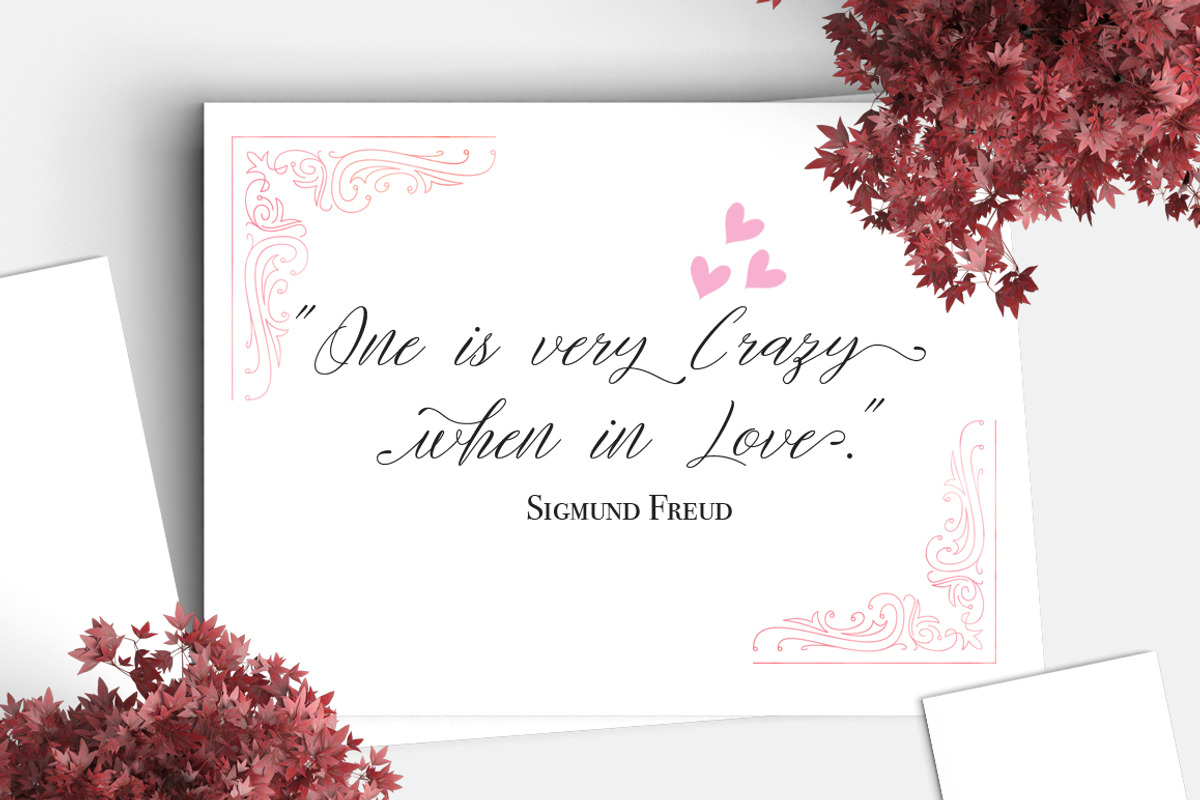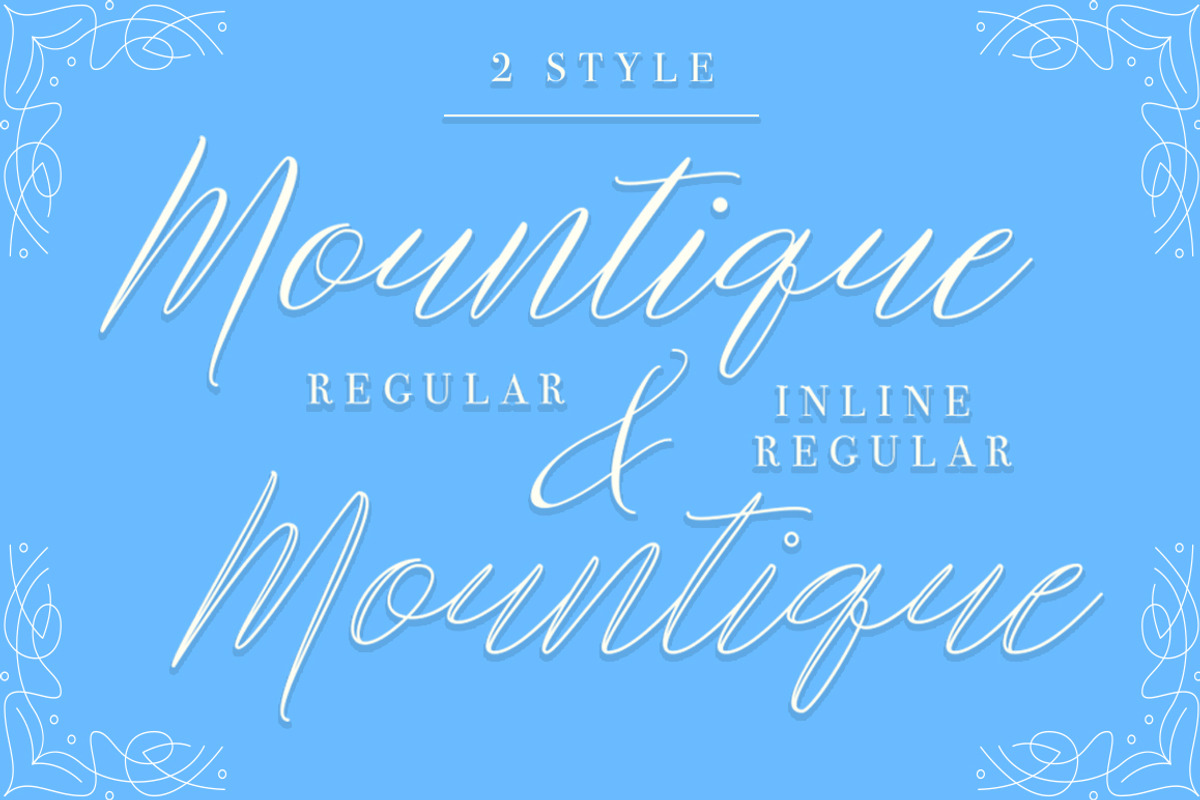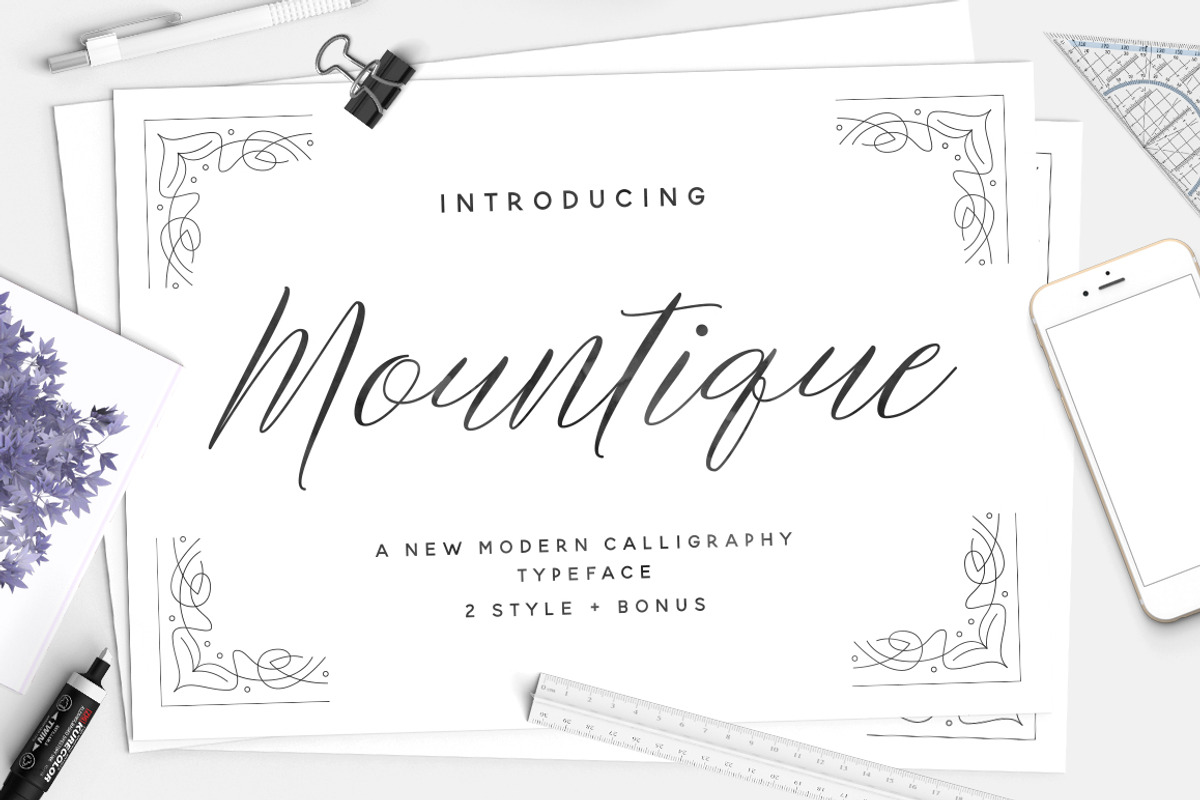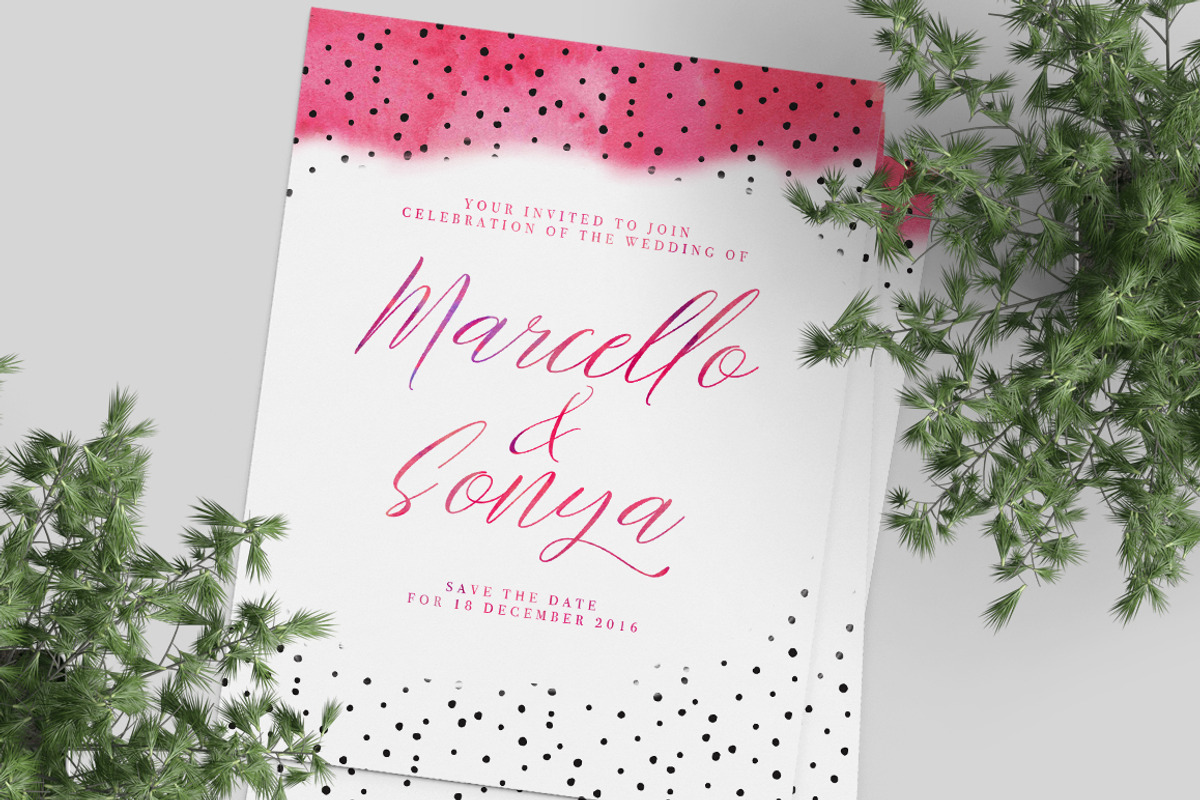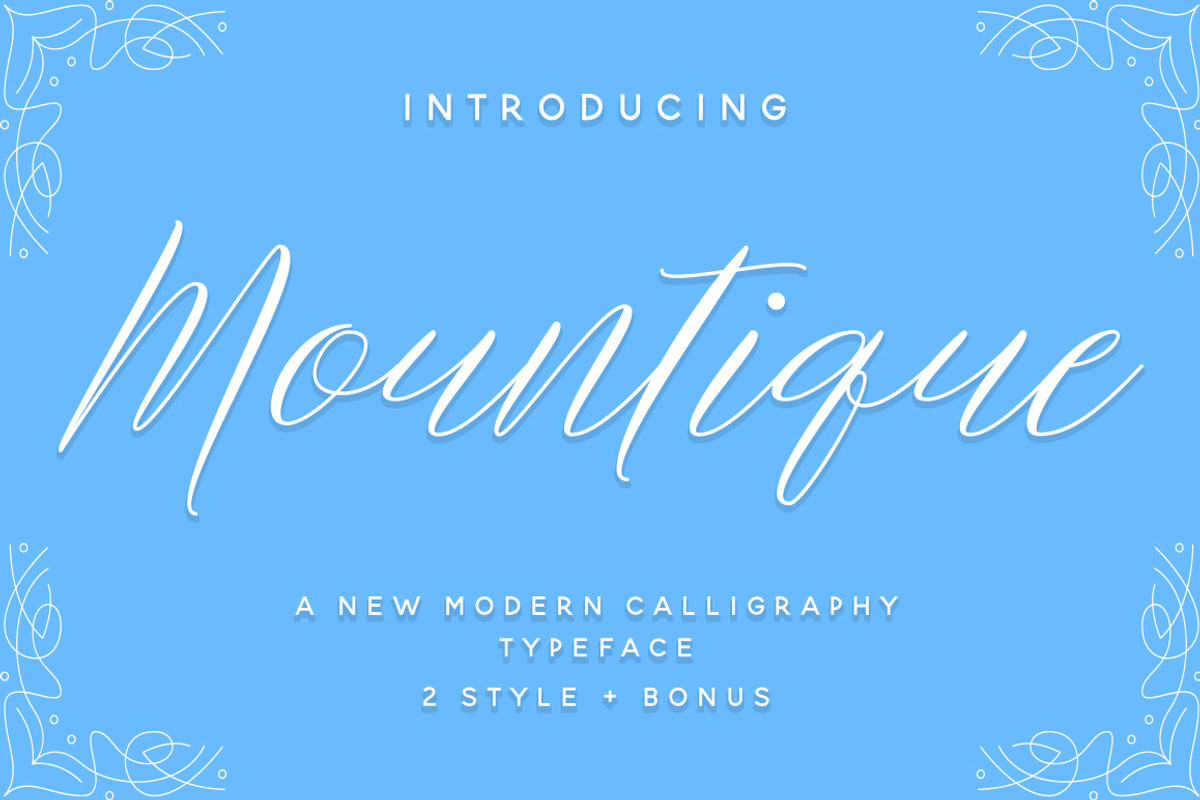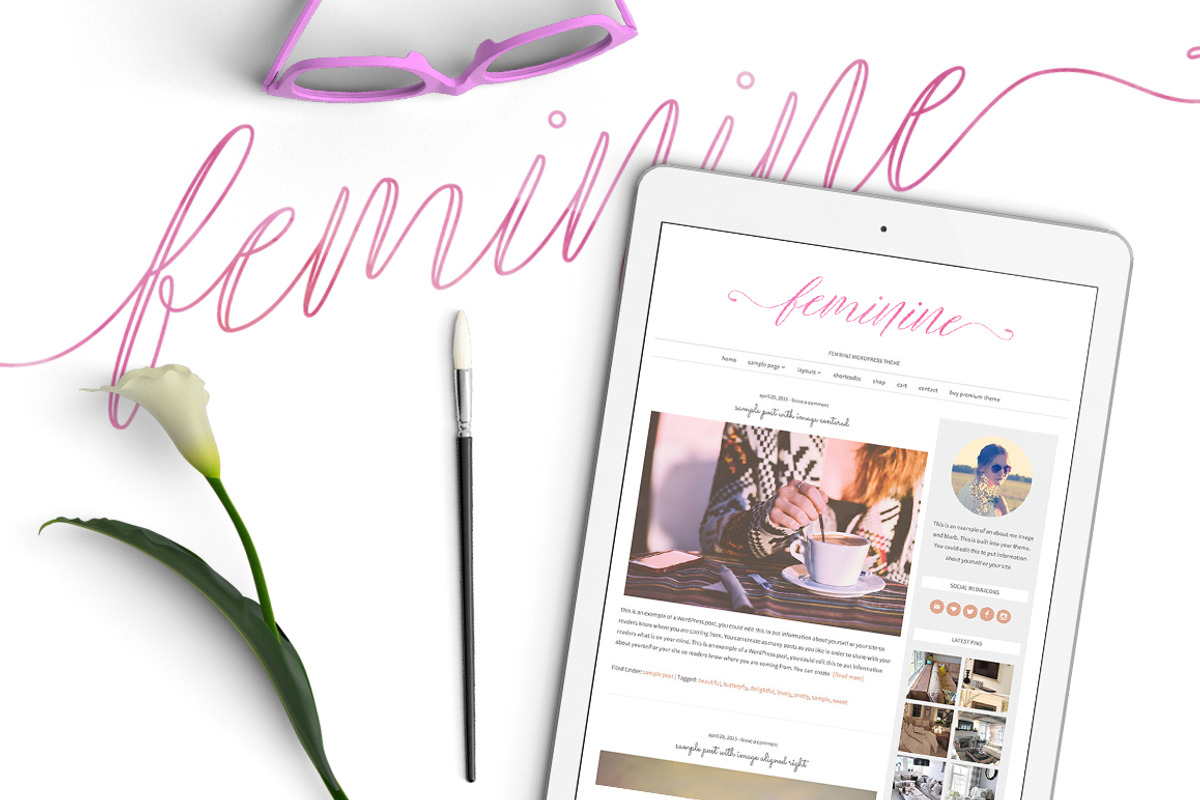
Mountique Typeface
Mountique Typeface by ianmikraz is a font selected for branding, posters, packaging, typography.
- Mountique Script Typeface Two Style features 311 glyphs and 137 alternate character contain with opentype features and has given PUA unicode
- Stylistic Alternates, Standart Ligature and more.You can access all those alternate characters by using OpenType savvy programs such as Adob
- Mix and match the alternate characters to add an attractive message to your design.
- Mountique Regular
- Mountique Inline Regular
Mountique Typeface by ianmikraz fits naturally into Branding, posters, packaging, typography.